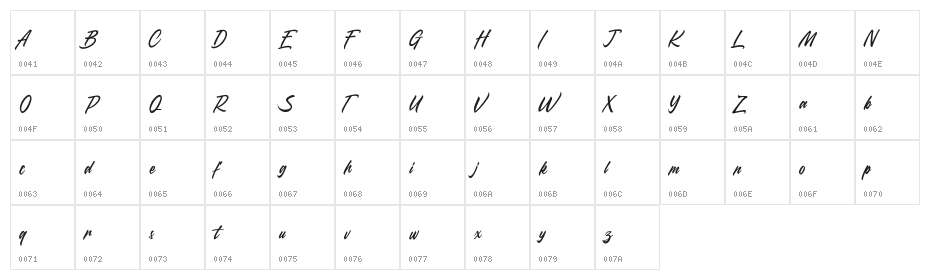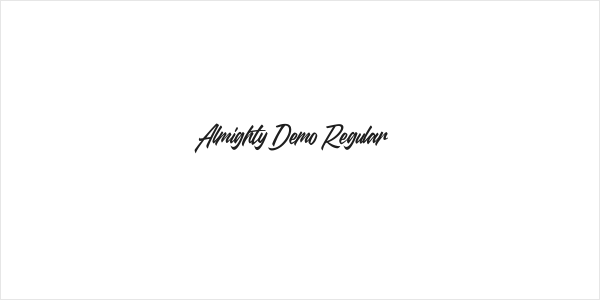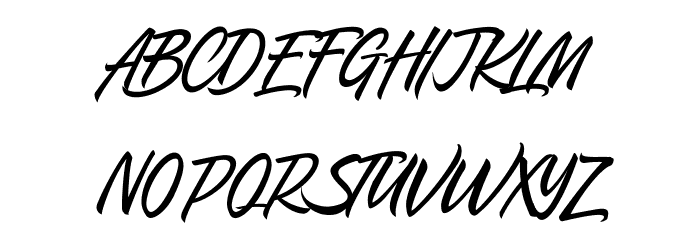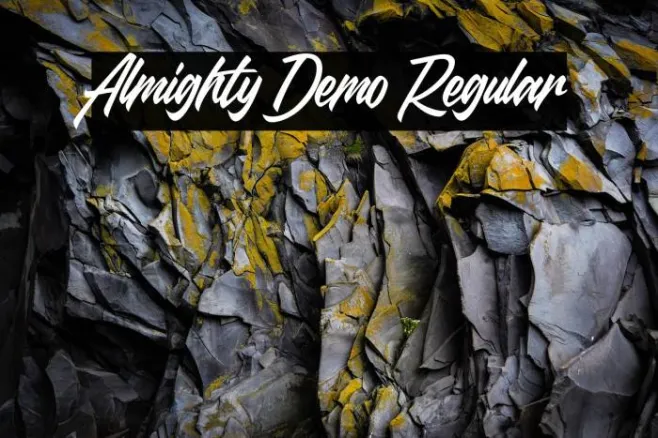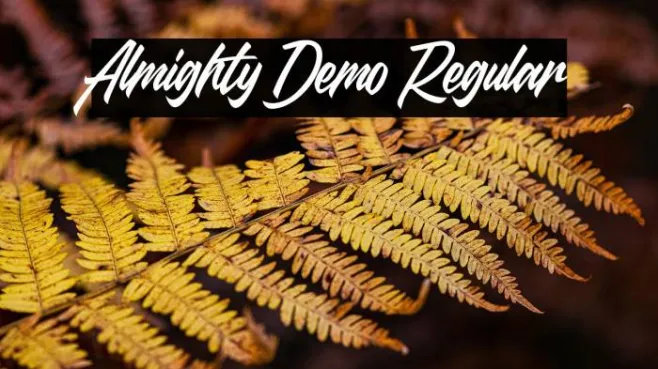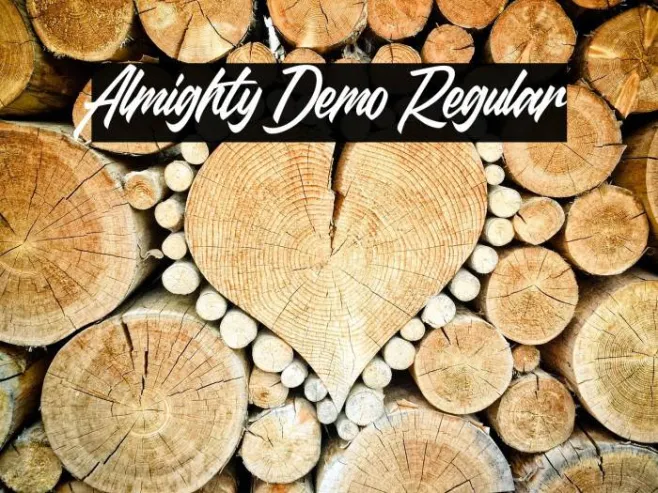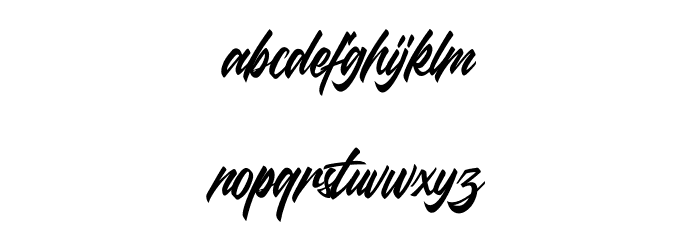
Almighty Demo Regular Font
Almighty Demo Regular Description
This font exudes a dynamic and energetic style, characterized by its bold and flowing script. The letters are designed with a sense of movement, featuring sharp angles and smooth curves that give it a handwritten feel. The uppercase letters are particularly striking, with a sense of grandeur and flair, while the lowercase letters maintain a consistent flow. The font's overall appearance is both modern and stylish, making it suitable for a variety of creative projects. The characters are slightly condensed, which adds to the compact and cohesive look of the text. The contrast in stroke thickness is medium, providing a balanced and readable appearance.
| Use Case | Logos, Headlines |
| Proposed Projects | Ideal for branding, logos, invitations, and creative headlines. |